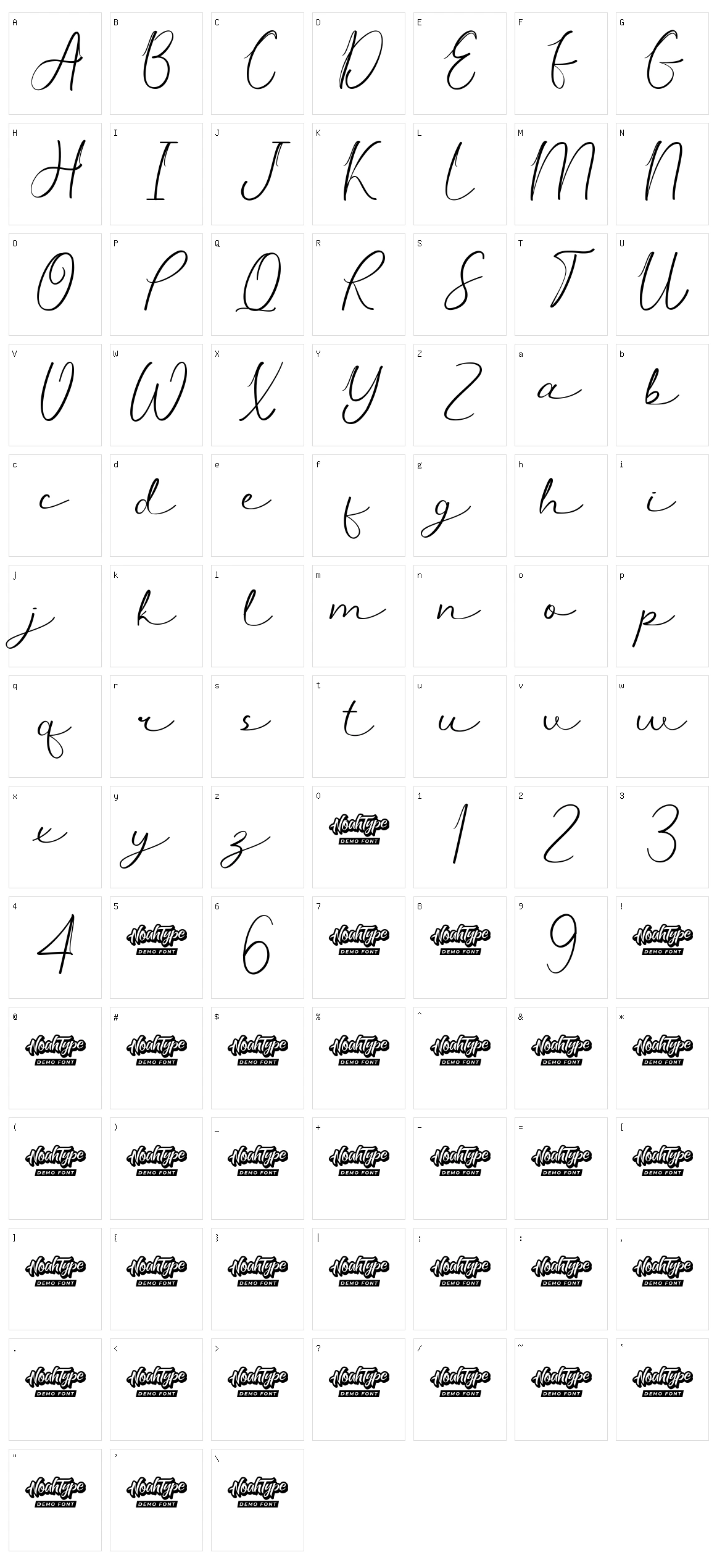
The free font Over Thinking is carefully designed by Noah Type, showcasing a thoughtful balance of creativity and usability and falls under the Script font style. When you download the ZIP file, it contains only 44.37 KB of font files, making it lightweight and quick to download. Please review the license details below to understand permitted usage and distribution rights. If license information is not available, we recommend using this font for personal projects only or contacting the author directly for commercial usage permissions.